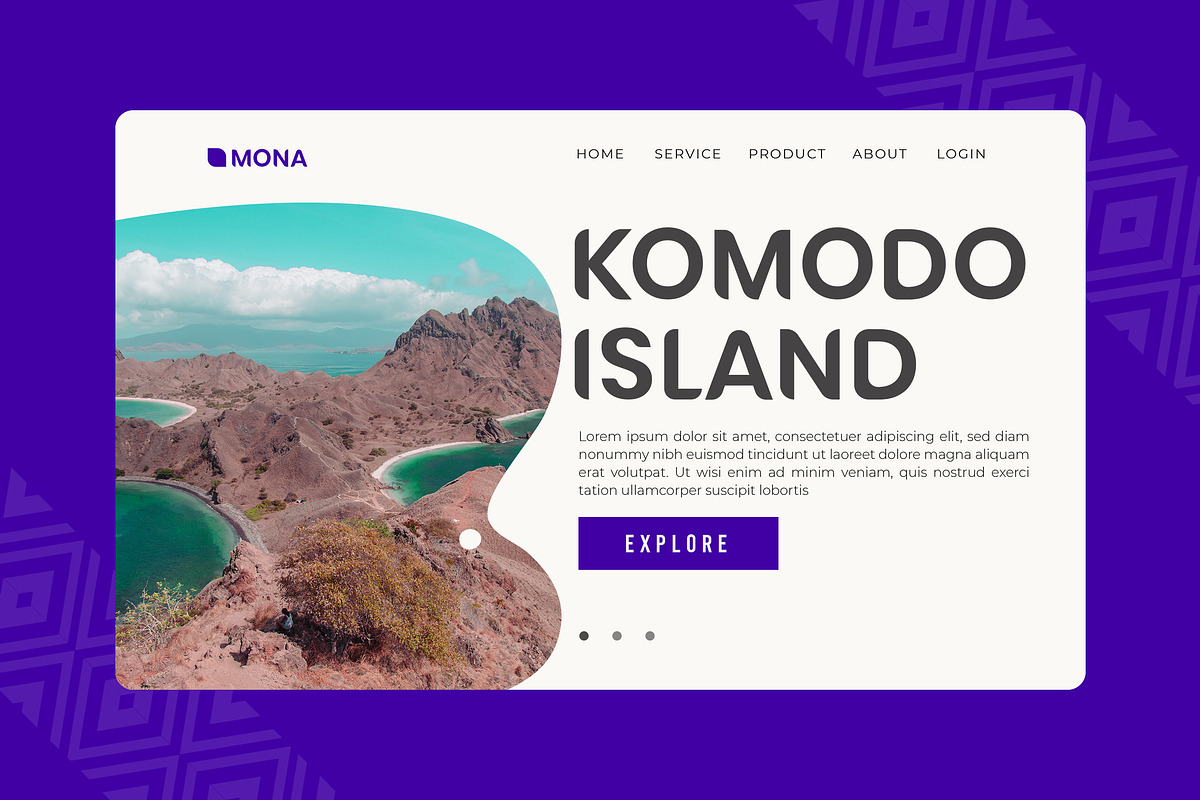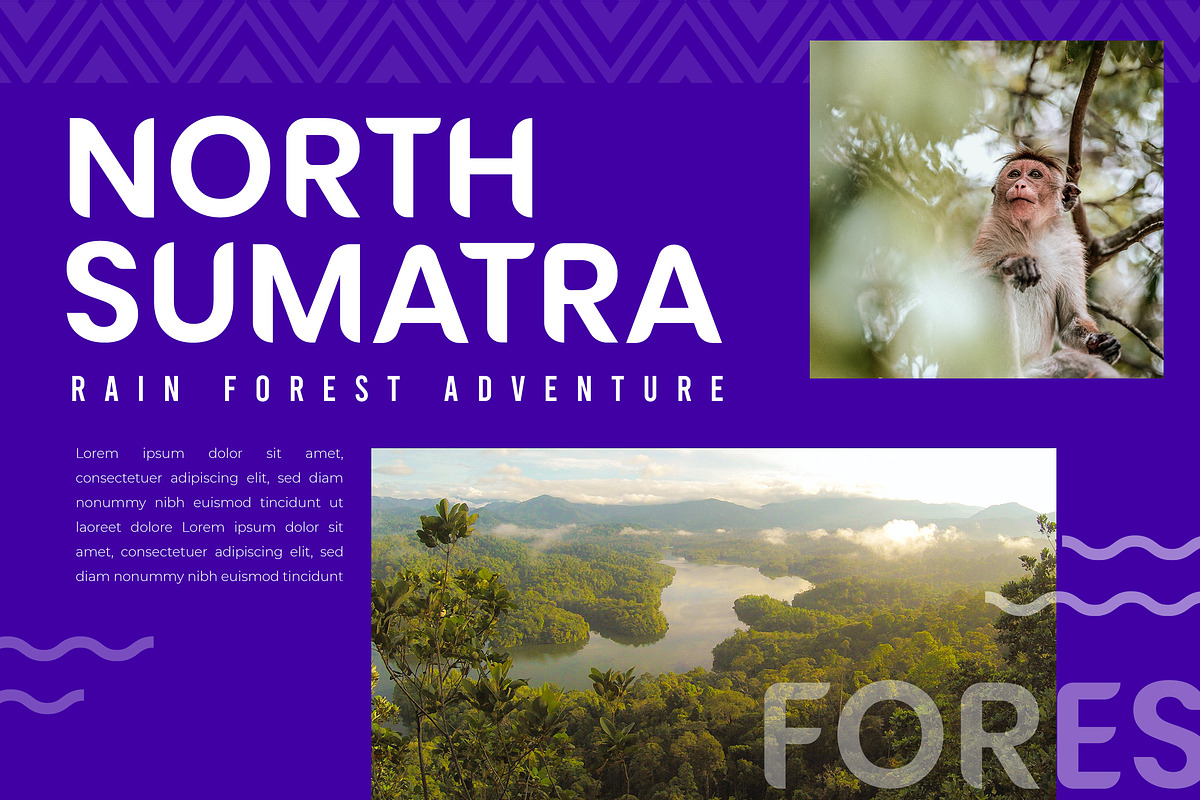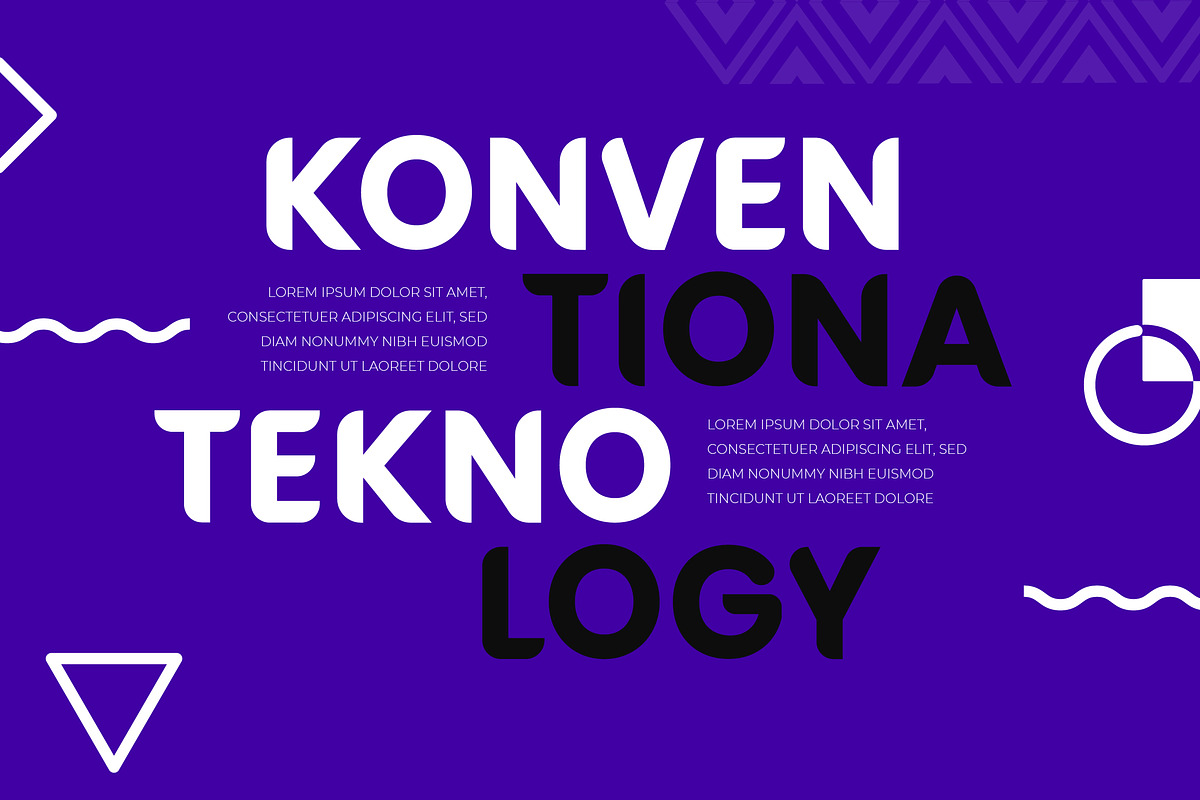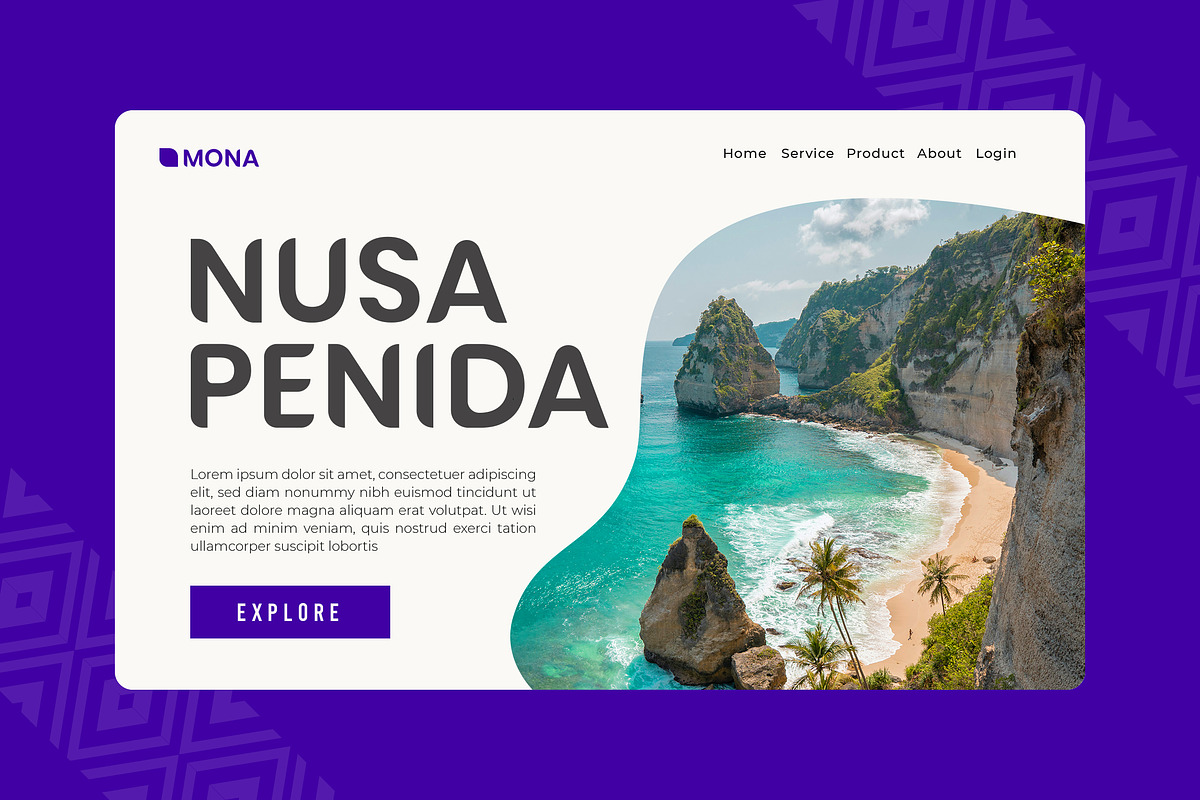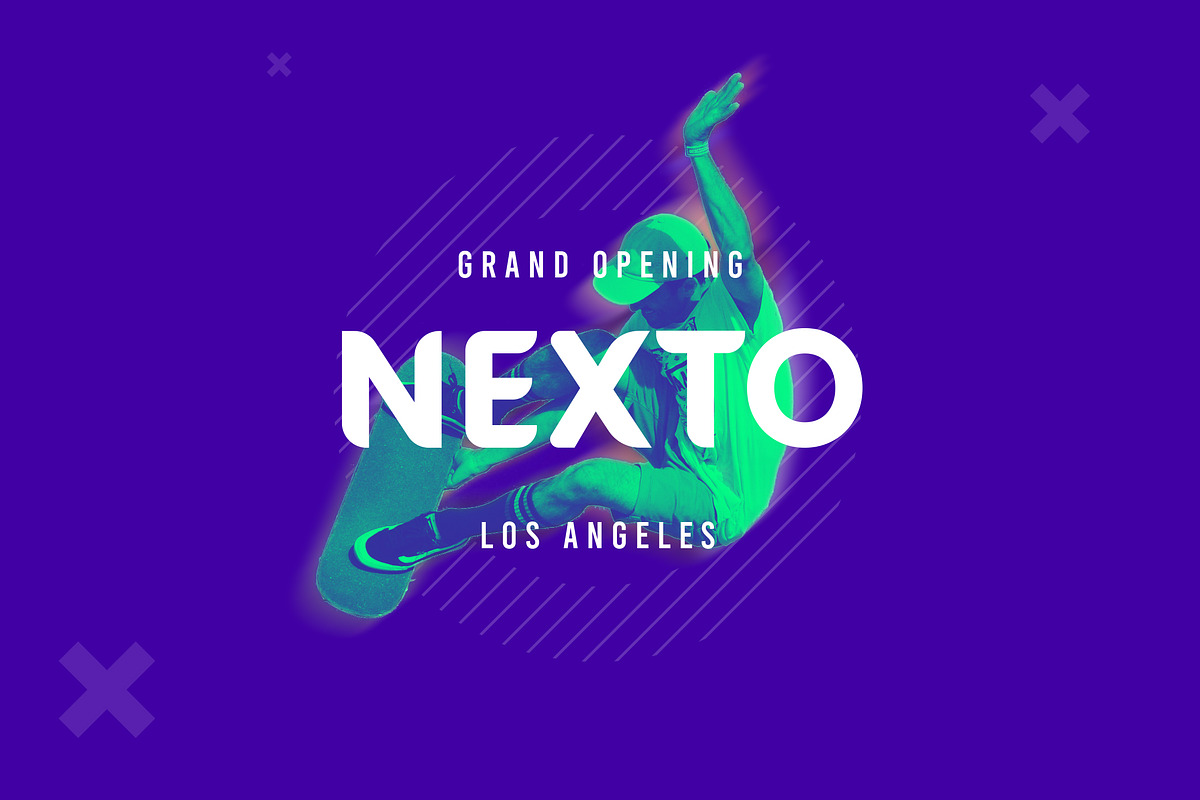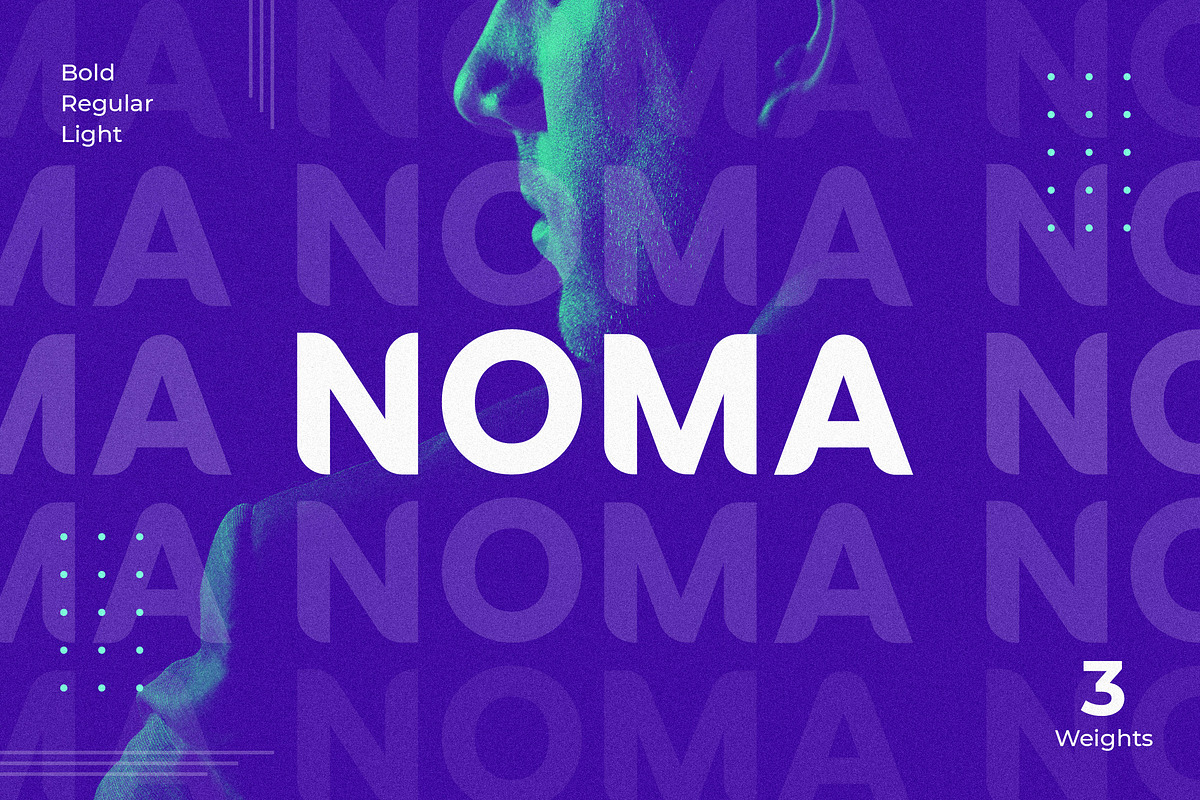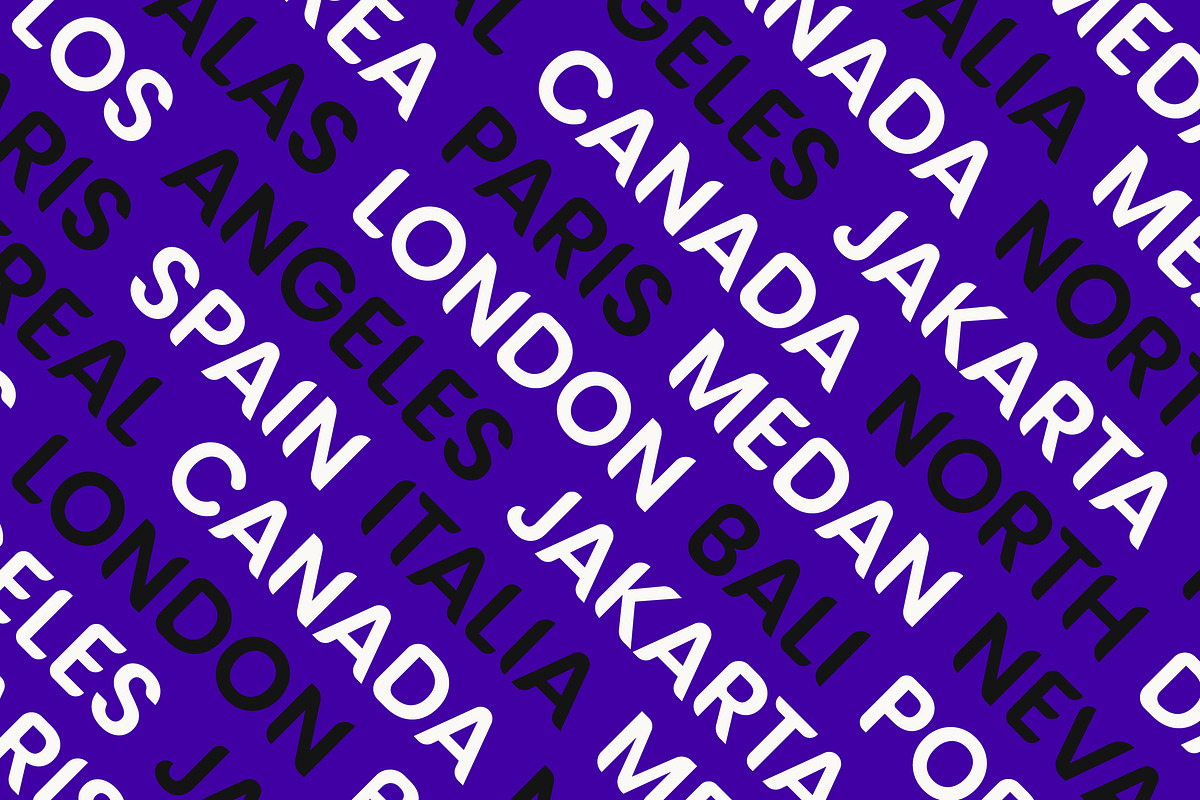
NOMA Sans Serif Font
NOMA is a super strong but playful bold font family. With smooth curve side, It is great for any branding, header, logos, magazine film, typography project, book and cover.
- 3 Weights font
- All caps
- Numerals & Punctuation
- Accented characters
- NOMA LIGHT
- NOMA Regular
- NOMA Bold